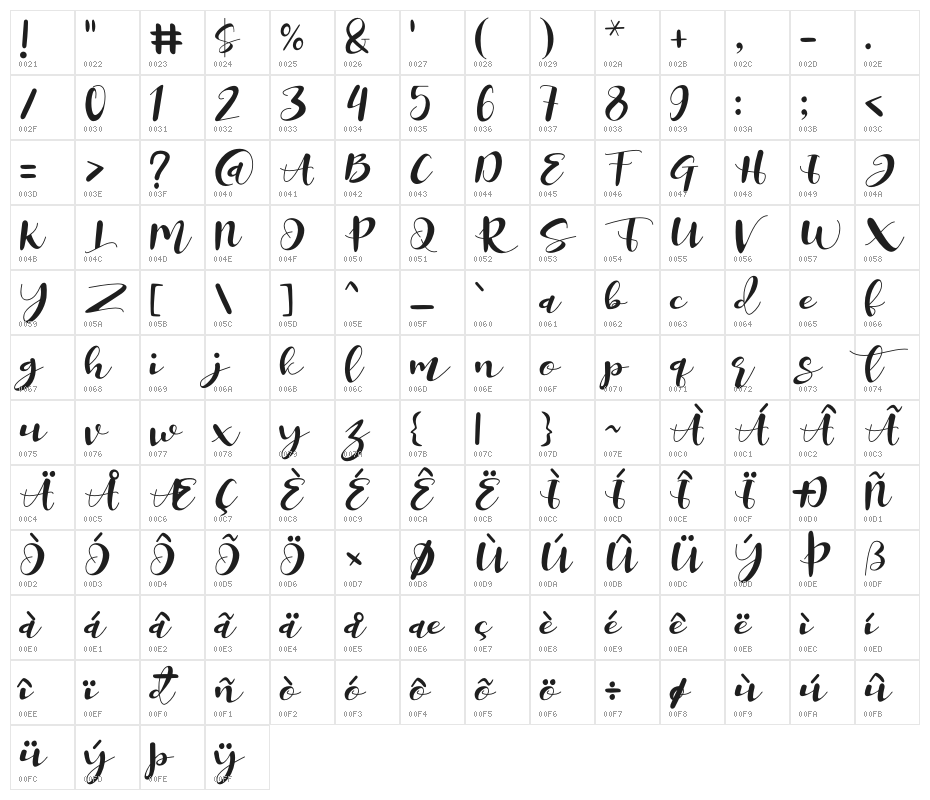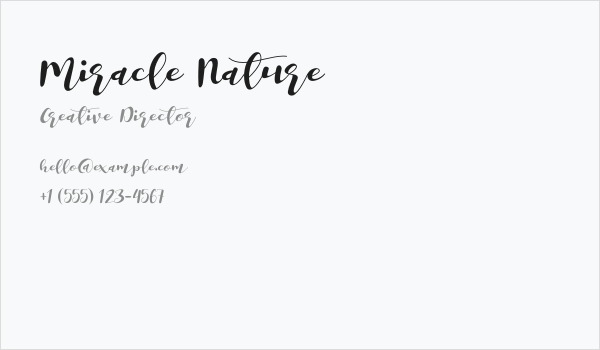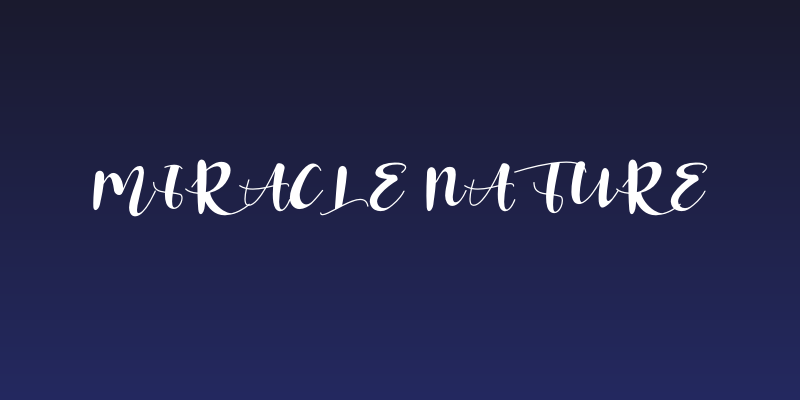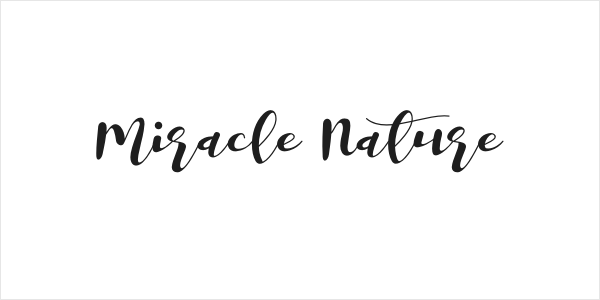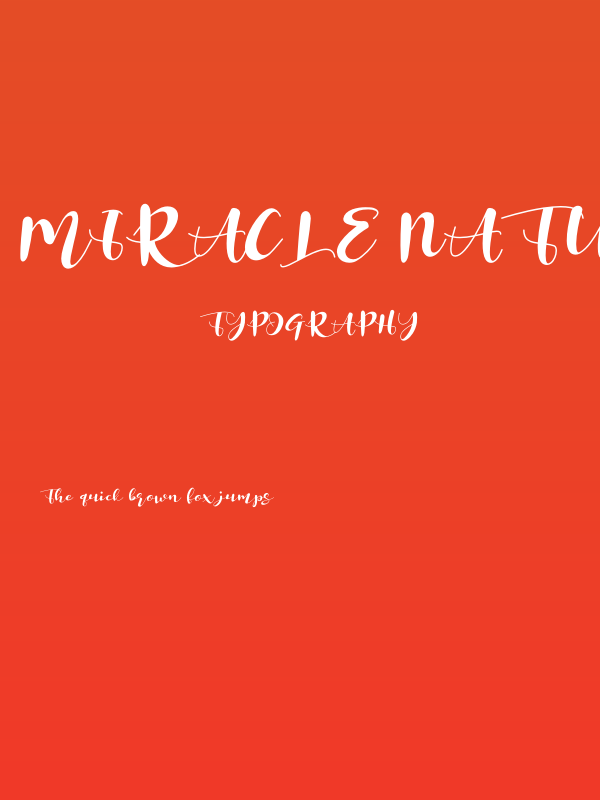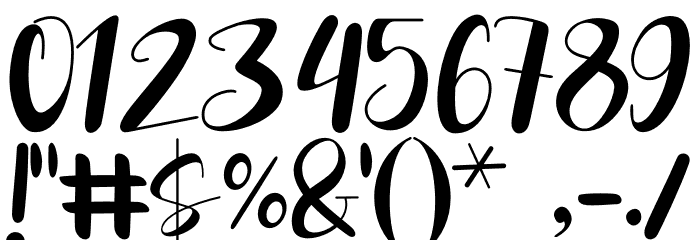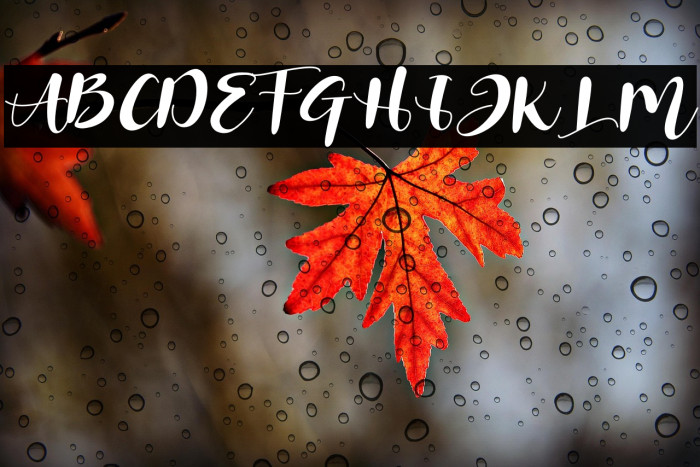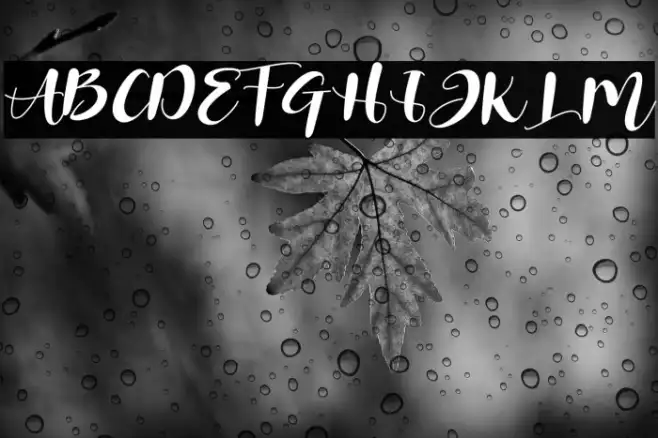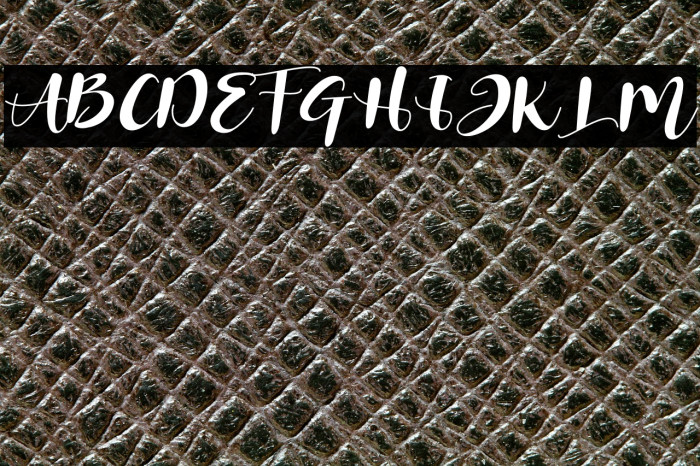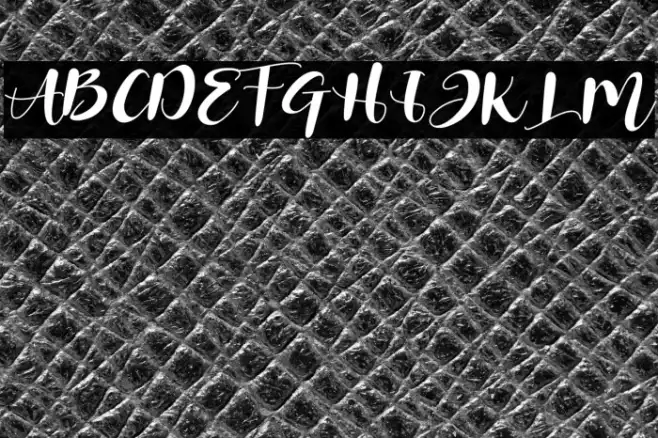
Miracle Nature Font
Miracle Nature Description
This font features a dynamic and flowing script style, characterized by its elegant and fluid letterforms. The uppercase letters exhibit a graceful, sweeping motion with a slight slant, while the lowercase letters maintain a consistent rhythm and smooth curves. The numerals are bold and slightly italicized, complementing the overall script aesthetic. Special characters are designed with the same attention to detail, ensuring a cohesive look across all glyphs. The font's high contrast between thick and thin strokes adds to its sophisticated appearance, making it ideal for projects that require a touch of elegance and flair.